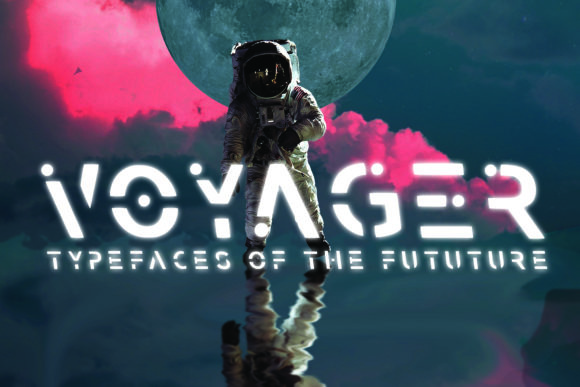
Prepare to embark on an extraordinary voyage through the cosmos with Voyager Font, a groundbreaking display font that transcends the boundaries of imagination. Crafted by the visionary minds at denestudios, Voyager is not just another font; it's an artistic gateway to a realm of limitless creativity.
In the ever-expanding universe of typography, Voyager stands tall as a beacon of innovation. Its striking and bold characters are meticulously designed to propel your designs to new heights, leaving an indelible mark on the digital landscape. As you navigate through the vast expanse of your creative endeavors, Voyager serves as your celestial guide, illuminating your path with its striking presence.
With Voyager Font as your celestial companion, you gain access to a cosmos of possibilities. Whether you're crafting a website that evokes the enigmatic allure of outer space, designing posters that transport viewers to uncharted galaxies, or creating social media graphics that ignite imaginations, Voyager is your trusted cosmic cartographer, charting a course through the uncharted territories of visual storytelling.
But Voyager Font is more than just a tool for visual expression; it's an experience that awakens the senses and stirs the soul. As your fingers dance across the keyboard, guiding Voyager's characters into existence, you'll feel the creative force surge through you, propelling you towards new realms of inspiration.
The beauty of Voyager lies in its versatility, its ability to adapt and thrive in any creative environment. Whether you're a seasoned designer exploring the depths of typography or a novice seeking to make a resounding debut, Voyager Font is your cosmic companion, guiding you towards typographic triumphs.
Join the ranks of visionary creatives who have harnessed the power of Voyager Font to elevate their designs to cosmic heights. Embrace the boundless possibilities that await you, and together, we'll embark on a voyage that transcends the ordinary and leaves an indelible mark on the universe of design.